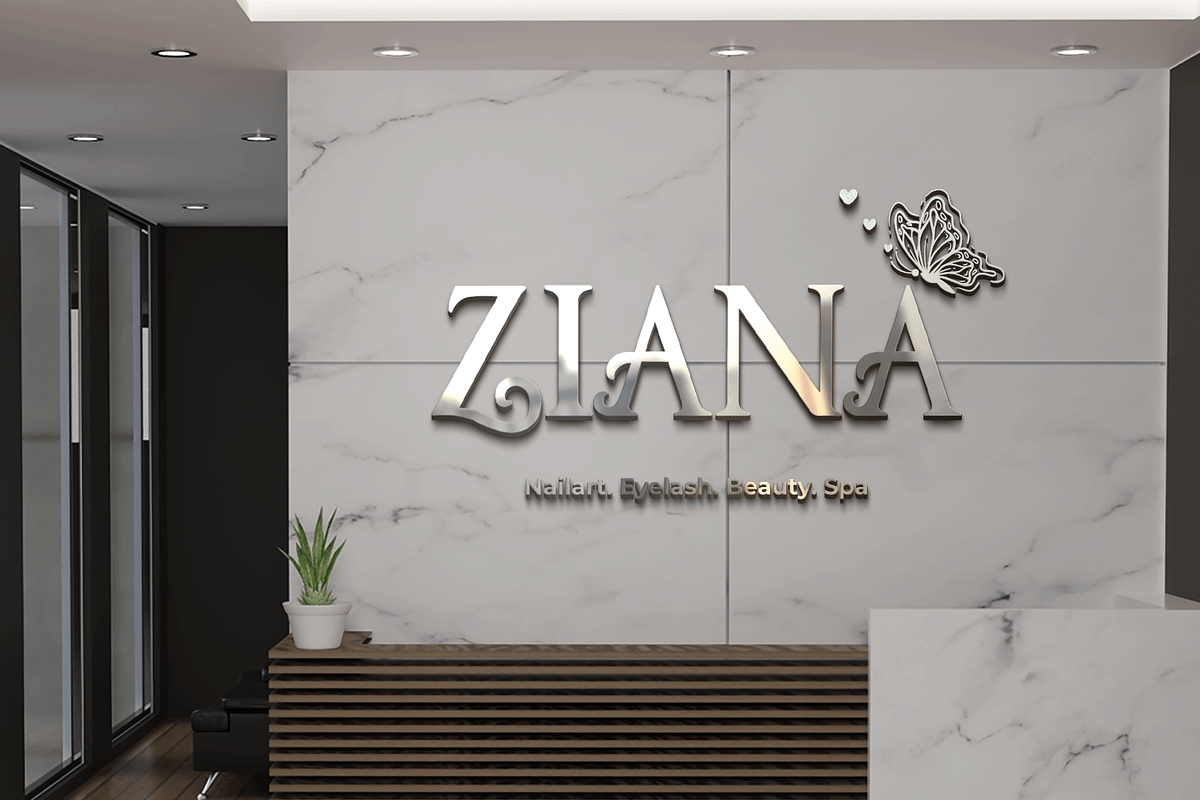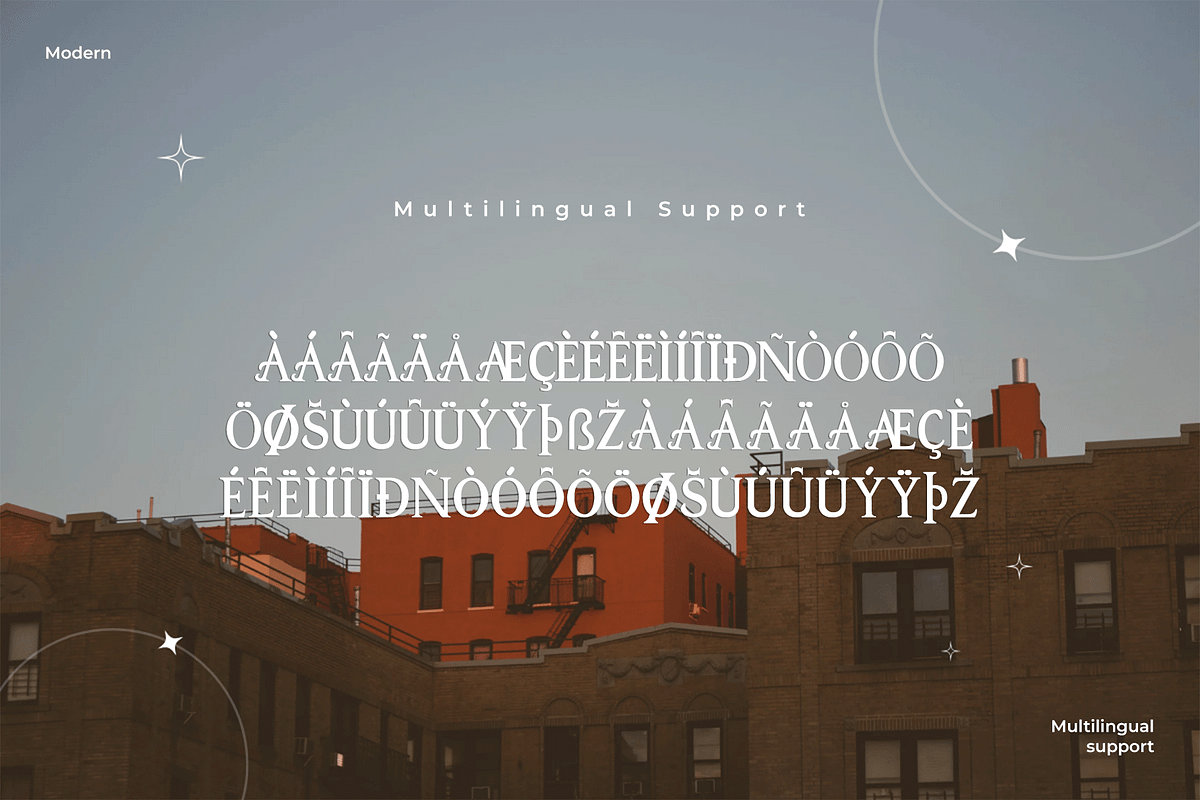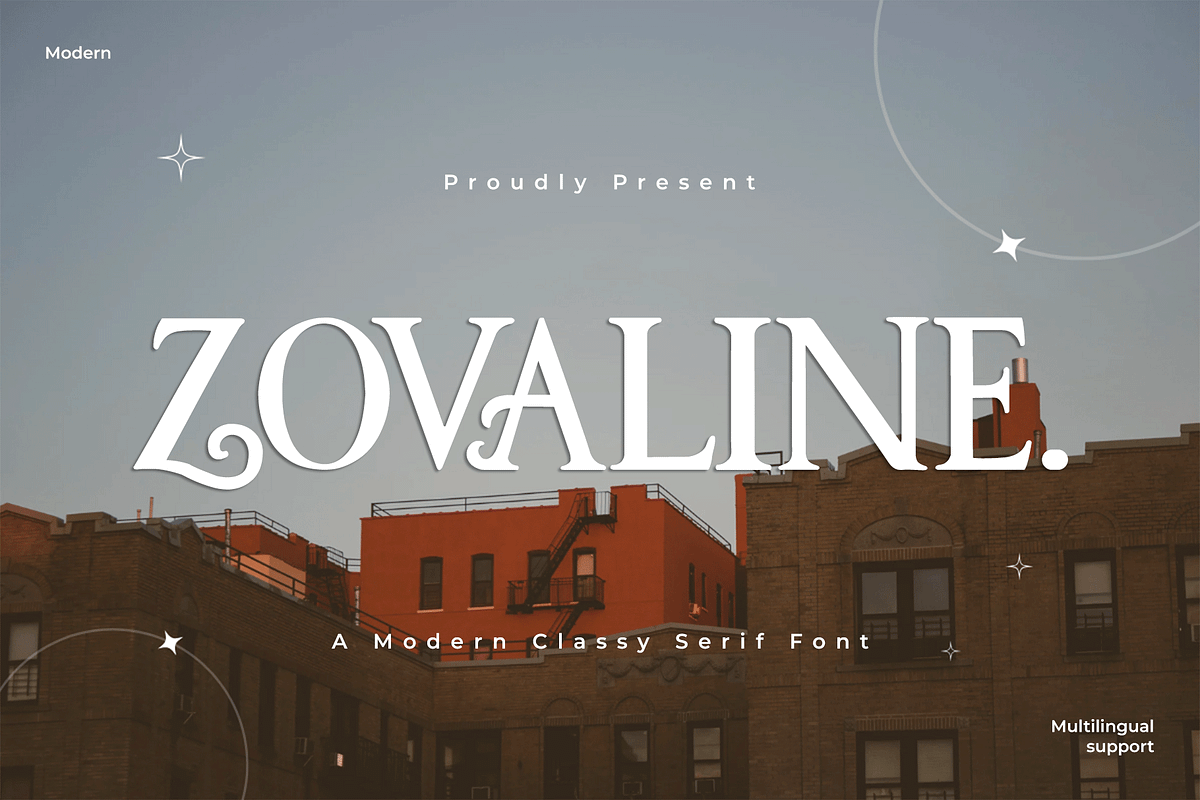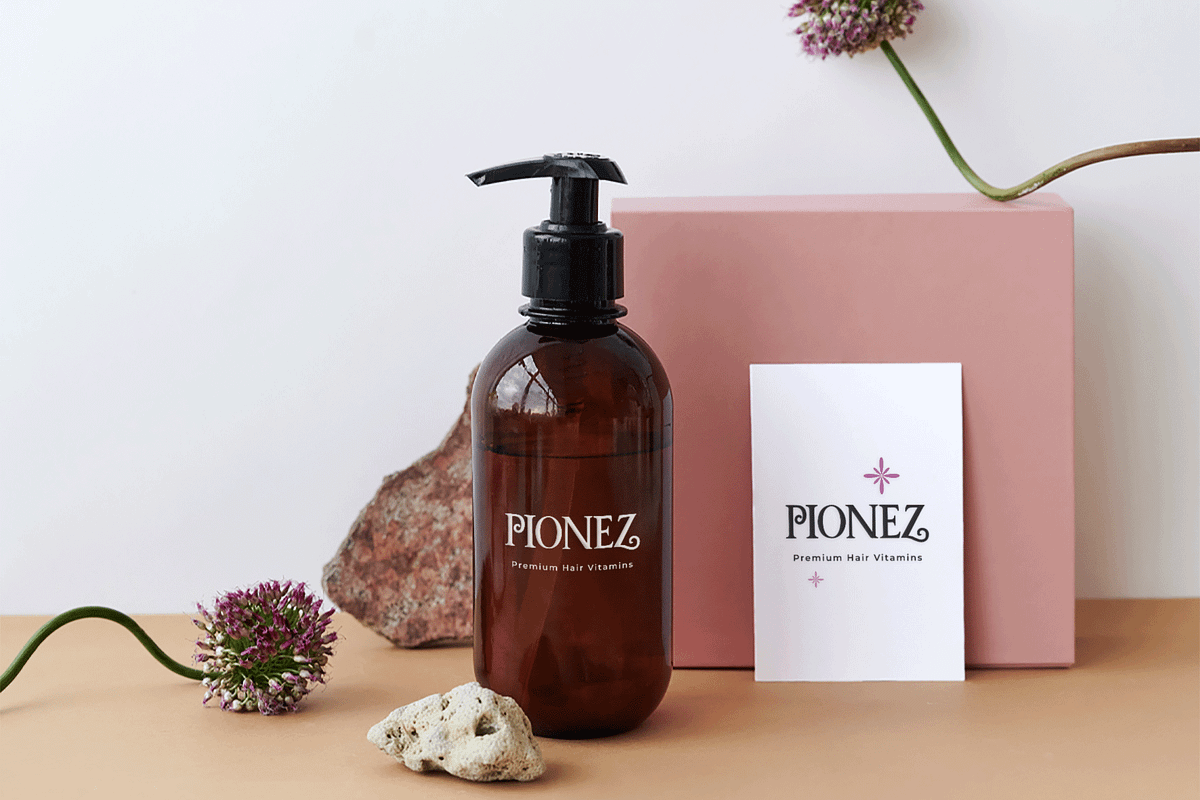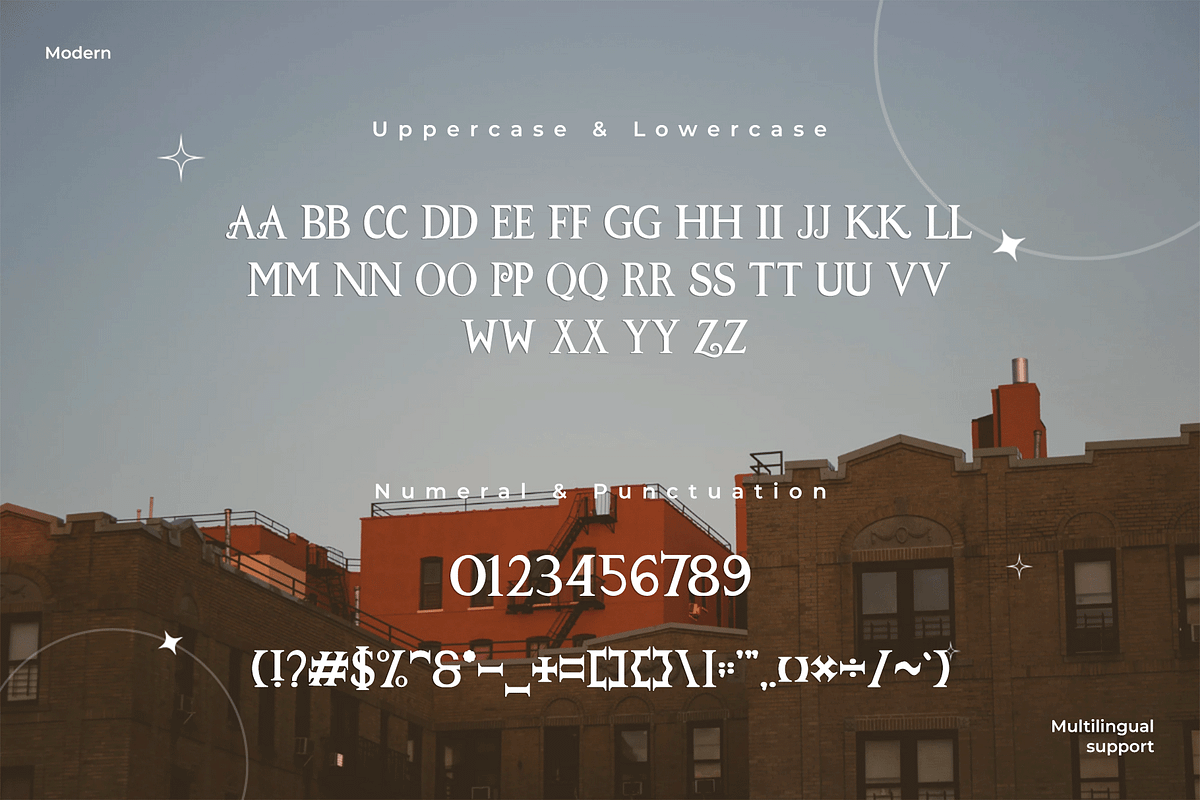
Zovaline - Modern Classy Serif Font
Introducing Zovaline, a modern classy serif font designed to elevate your creative projects with a touch of sophistication. Featuring clean lines, well-defined serifs, and a refined structure, Zovaline seamlessly blends contemporary style with classic elegance, making it the ideal choice for high-end designs.
Whether you're working on luxury branding, editorial layouts, upscale invitations, or elegant advertising, Zovaline brings a sense of professionalism and timeless beauty to every project. Its versatility and attention to detail ensure it stands out in both print and digital mediums, adding a polished, chic appearance to any design.
Zovaline comes with a comprehensive character set, including uppercase and lowercase letters, numerals, punctuation, and multilingual support. Perfect for everything from sophisticated logos to polished editorial spreads, this font is your go-to for creating designs that exude refinement and class.
Zovaline is the perfect modern serif font for those who seek elegance and timeless charm in their designs.